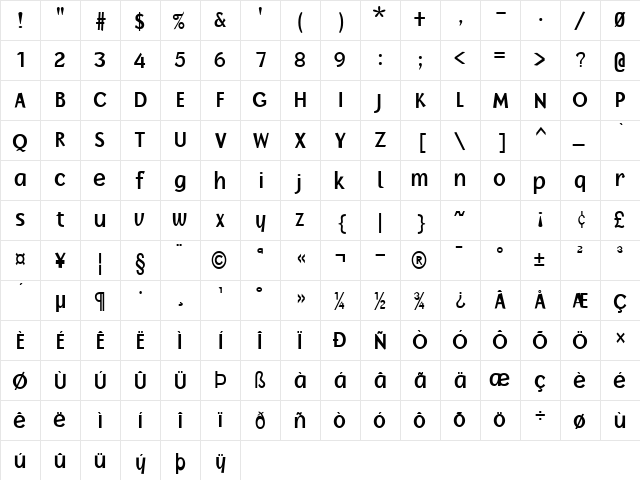
Oak-Ridge-Condensed Bold
Design Context for Oak-Ridge-Condensed Typeface
Oak-Ridge-Condensed takes a measured approach to typography — its balanced proportions and neutral character make it a reliable workhorse for both digital and print work. Its bold stroke weight gives it real presence on the page. Its narrow stance lets it pack a punch even in space-constrained designs.